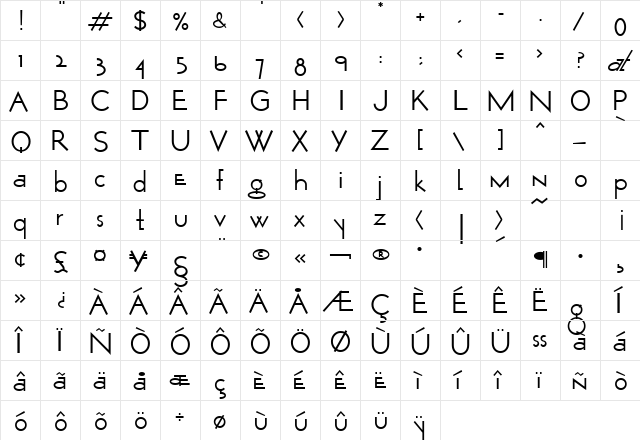
Opticon One1
Design Context for Opticon Typeface
Opticon takes a measured approach to typography — its balanced proportions and neutral character make it a reliable workhorse for both digital and print work.